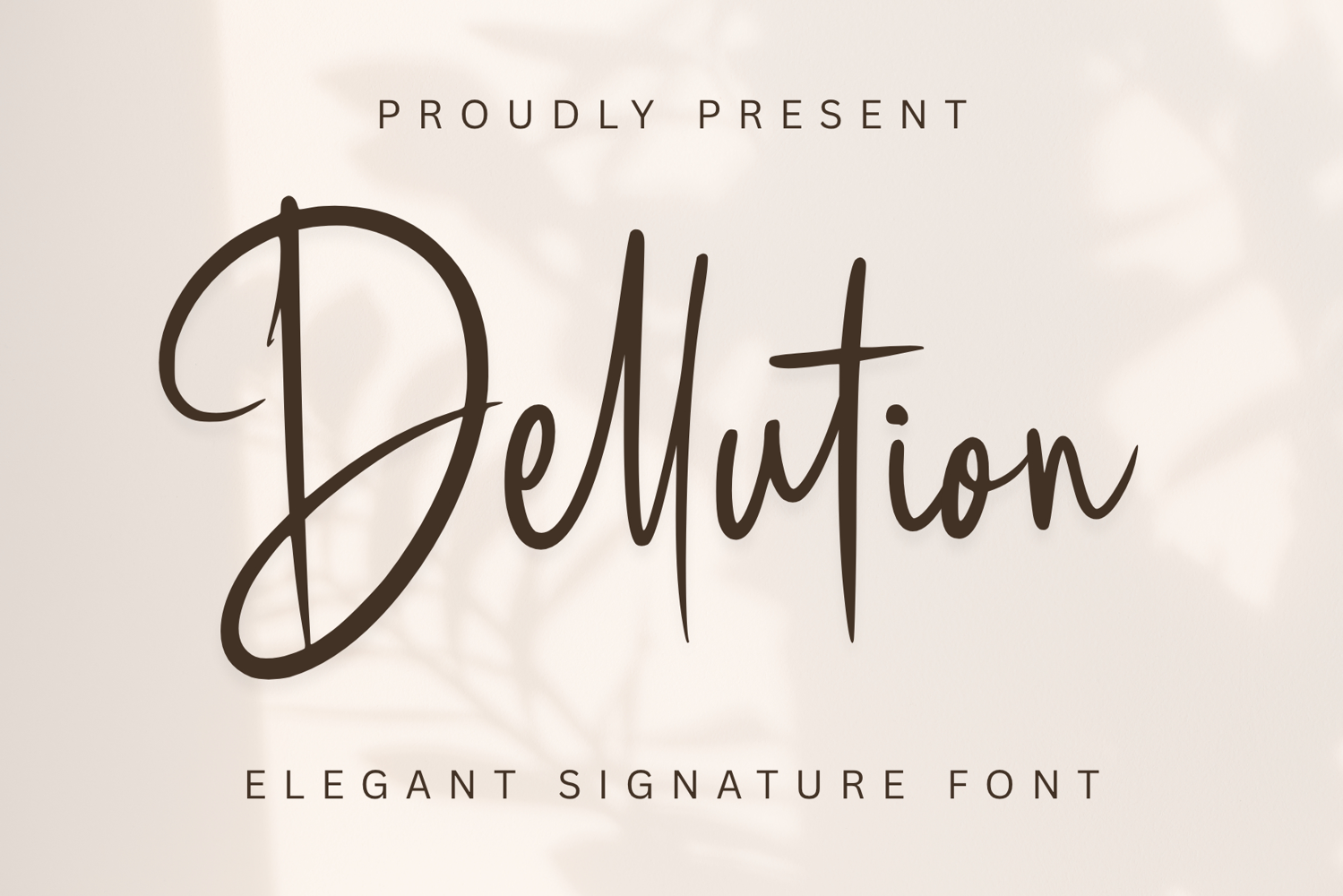
Dellution
Dellution - Italic
Dellution is a modern and elegant signature font that brings a touch of class and sophistication to any design. With its smooth strokes and natural handwritten style, Dellution is perfect for branding, logos, invitations, product packaging, quotes, social media posts, and many other creative projects.